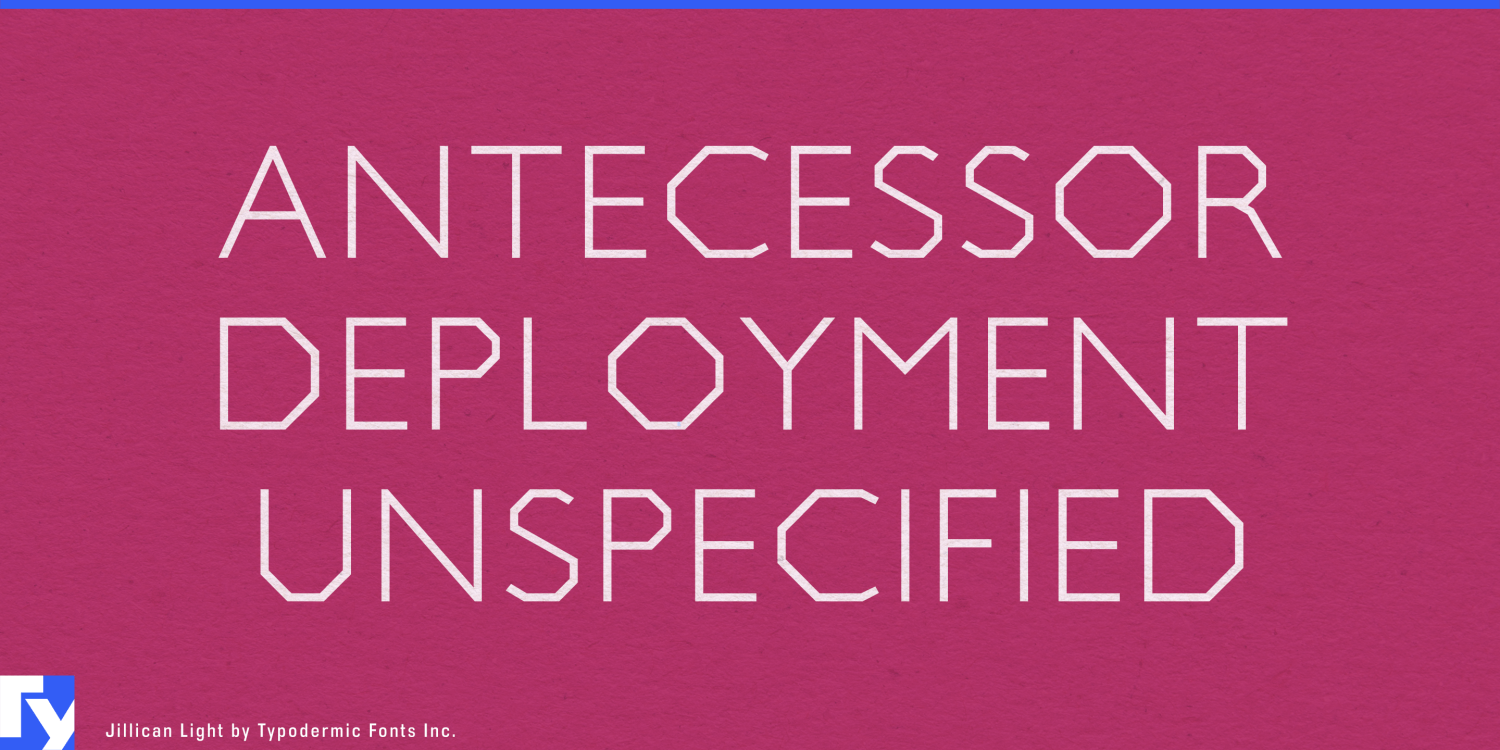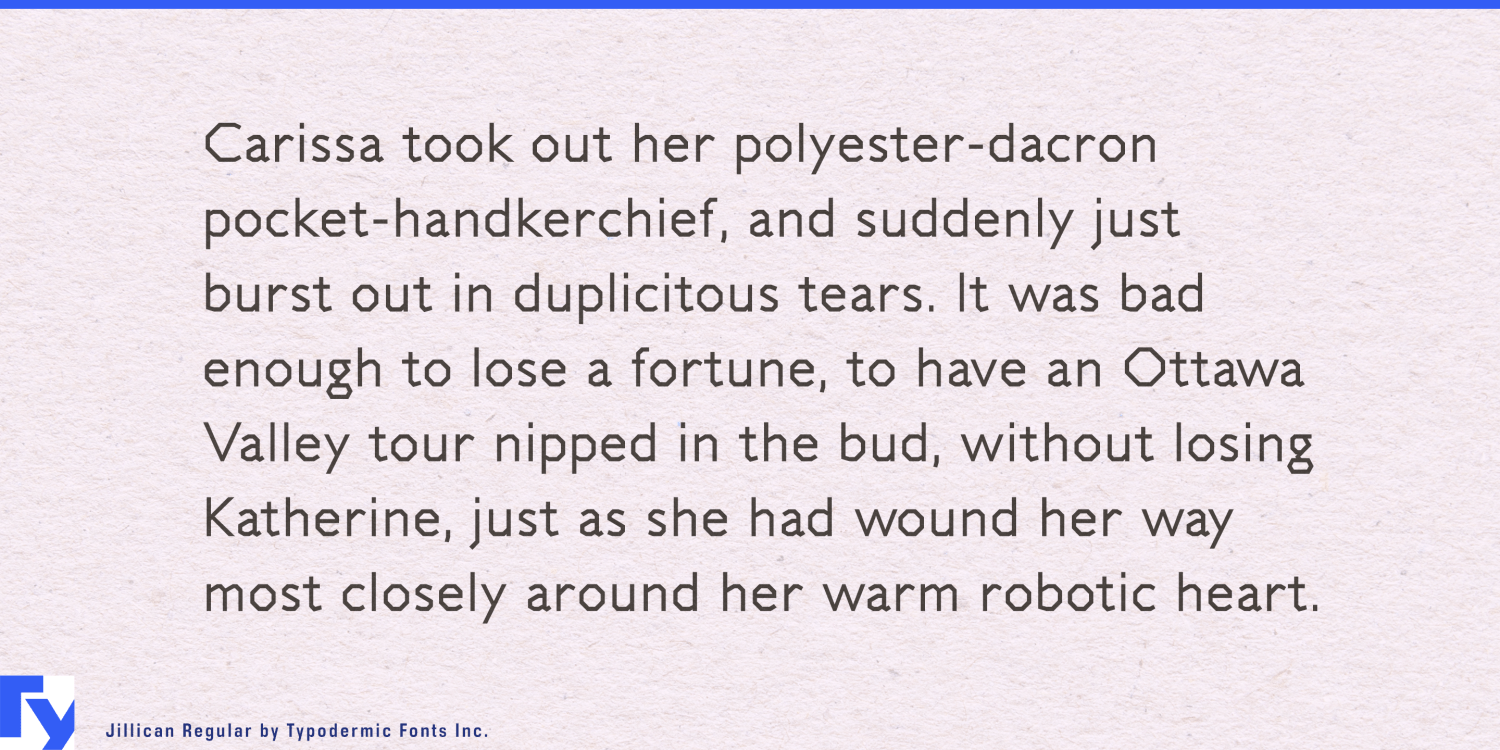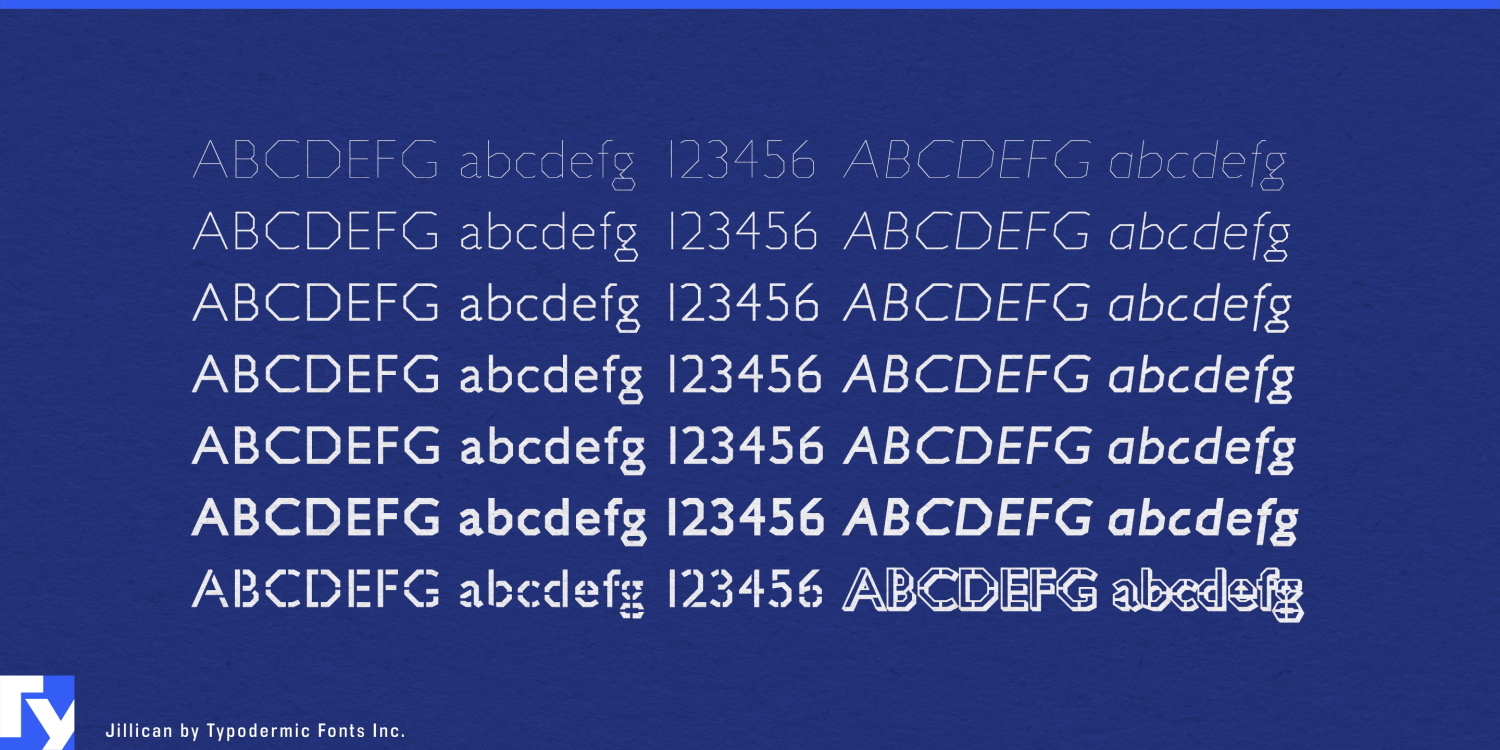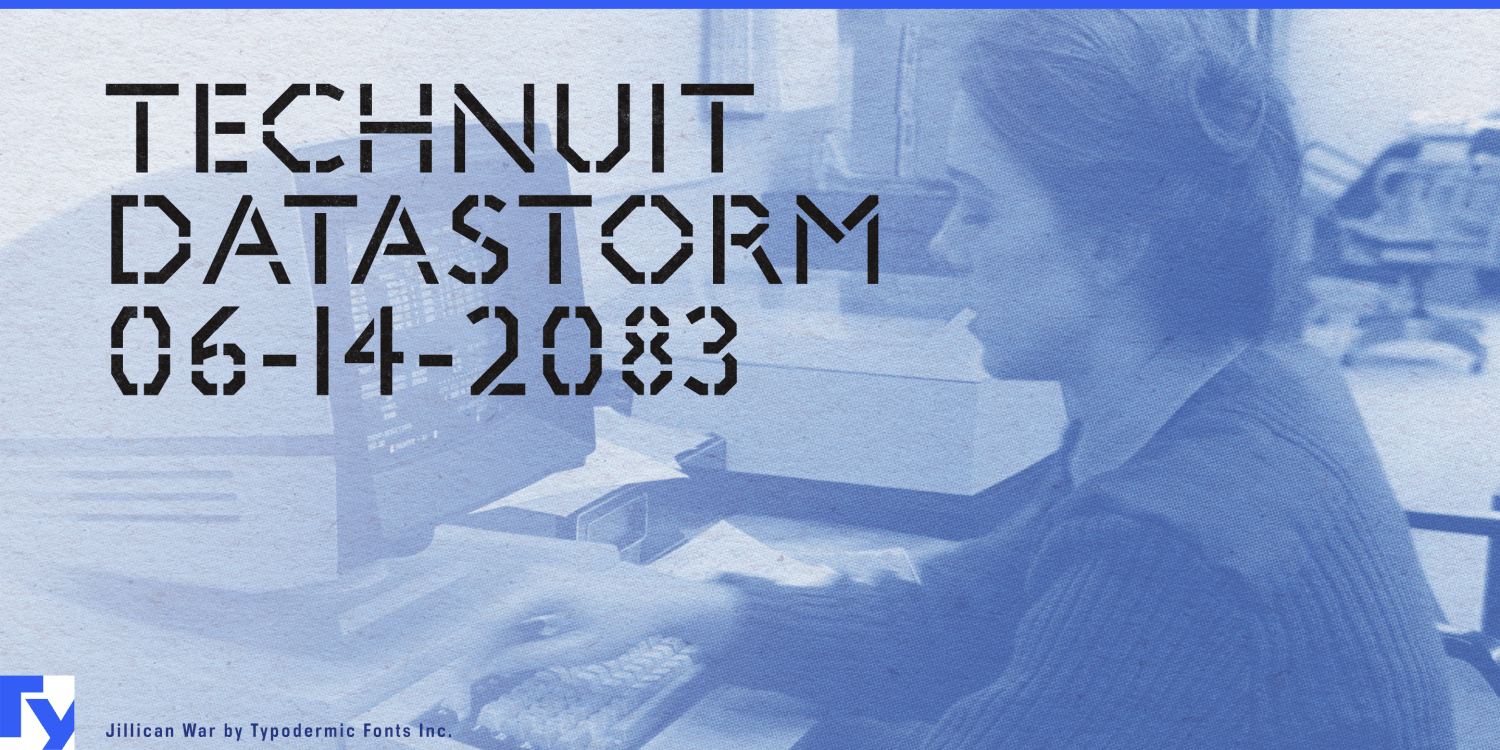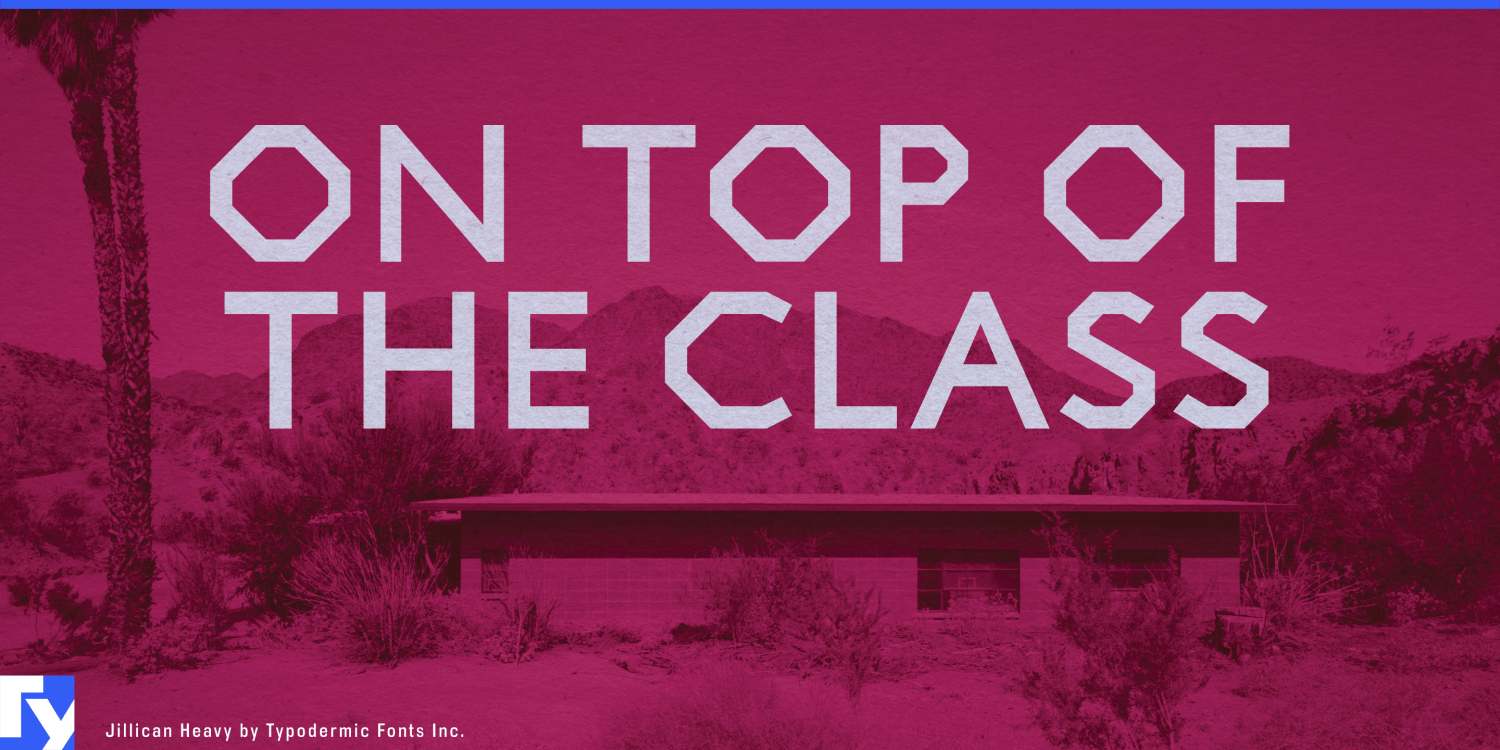
Jillican emerges as a refined homage to classic British typography, channeling the timeless elegance of mid-20th century sans-serif design while infusing it with contemporary precision. This typeface strikes a masterful balance between heritage and modernity,…